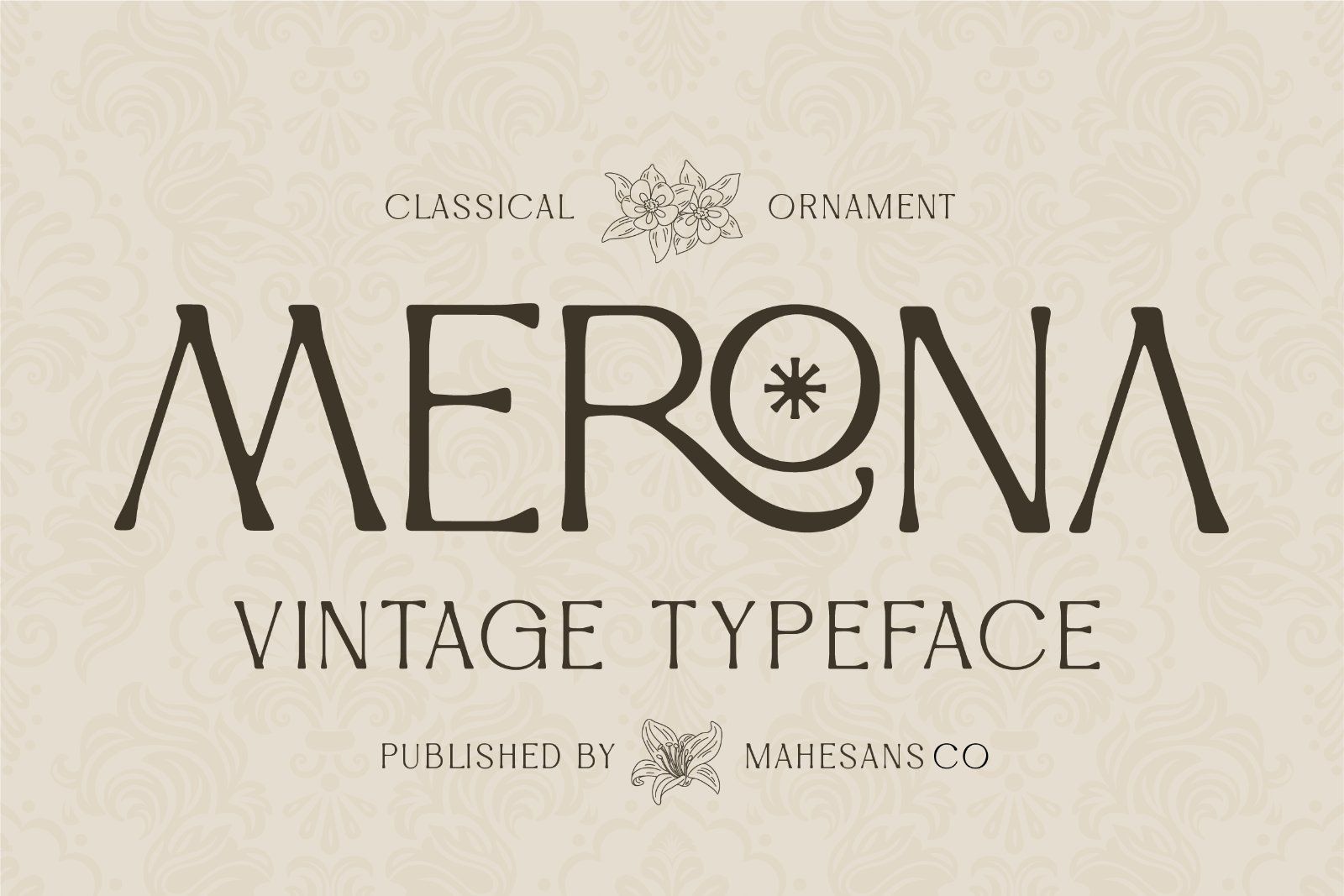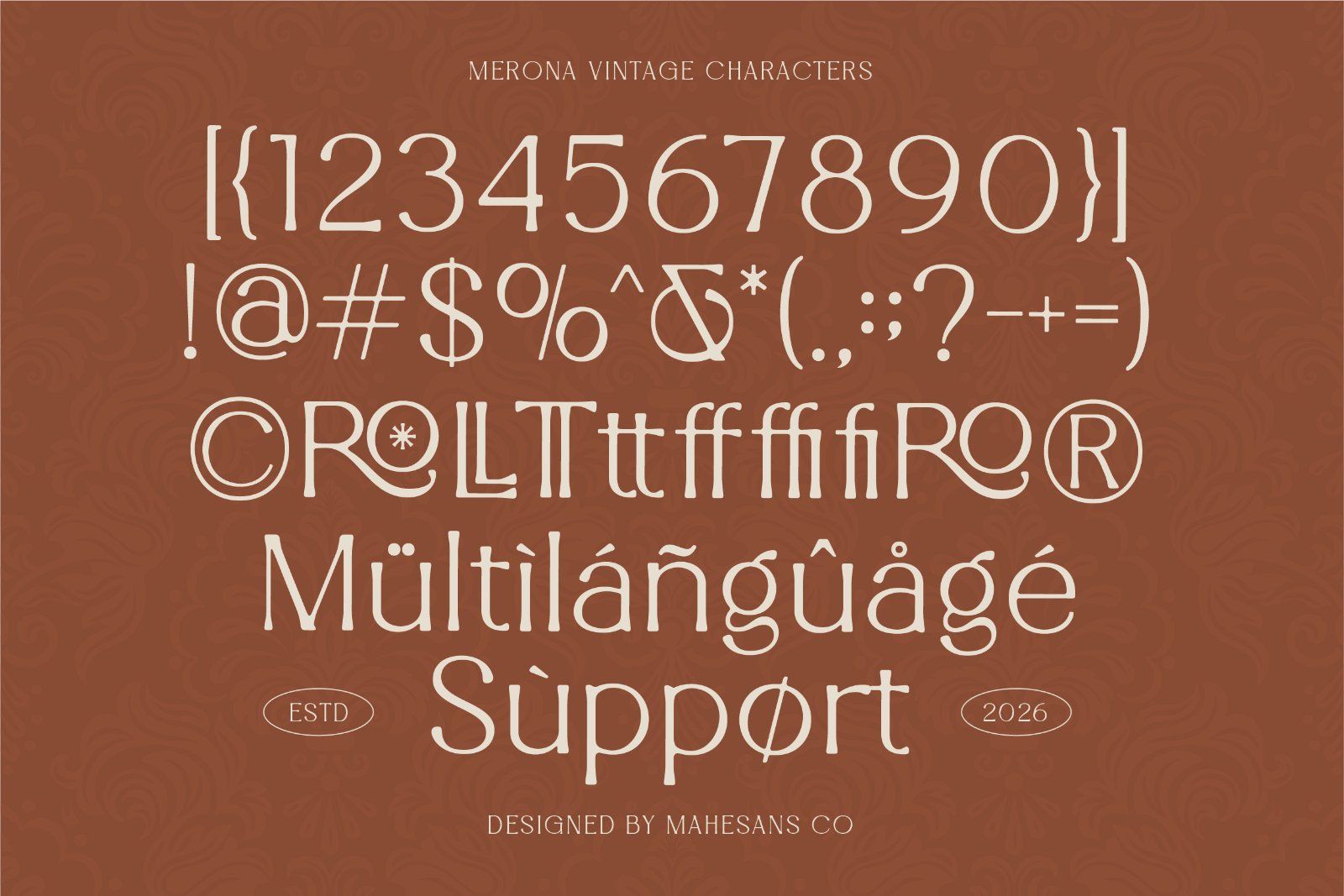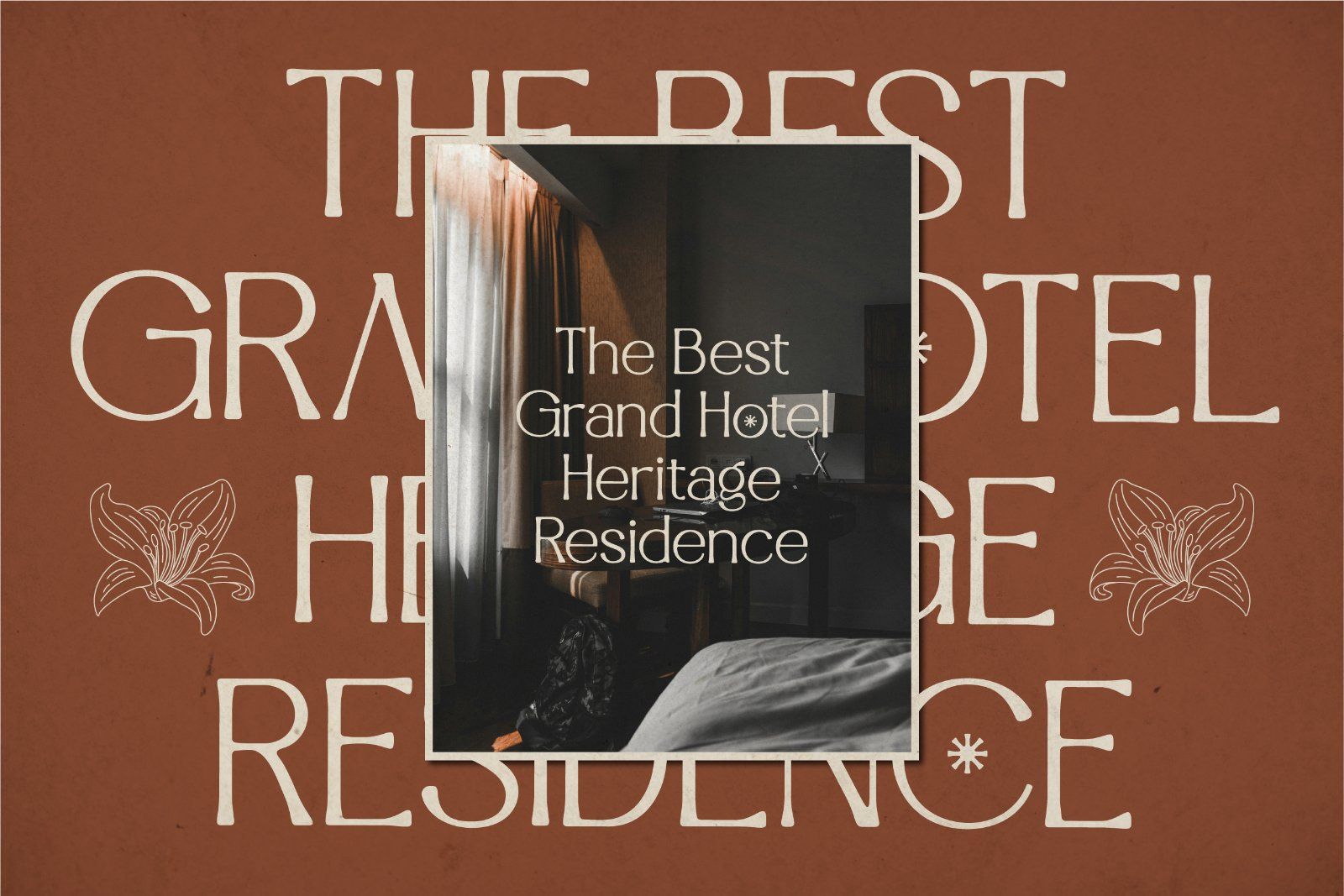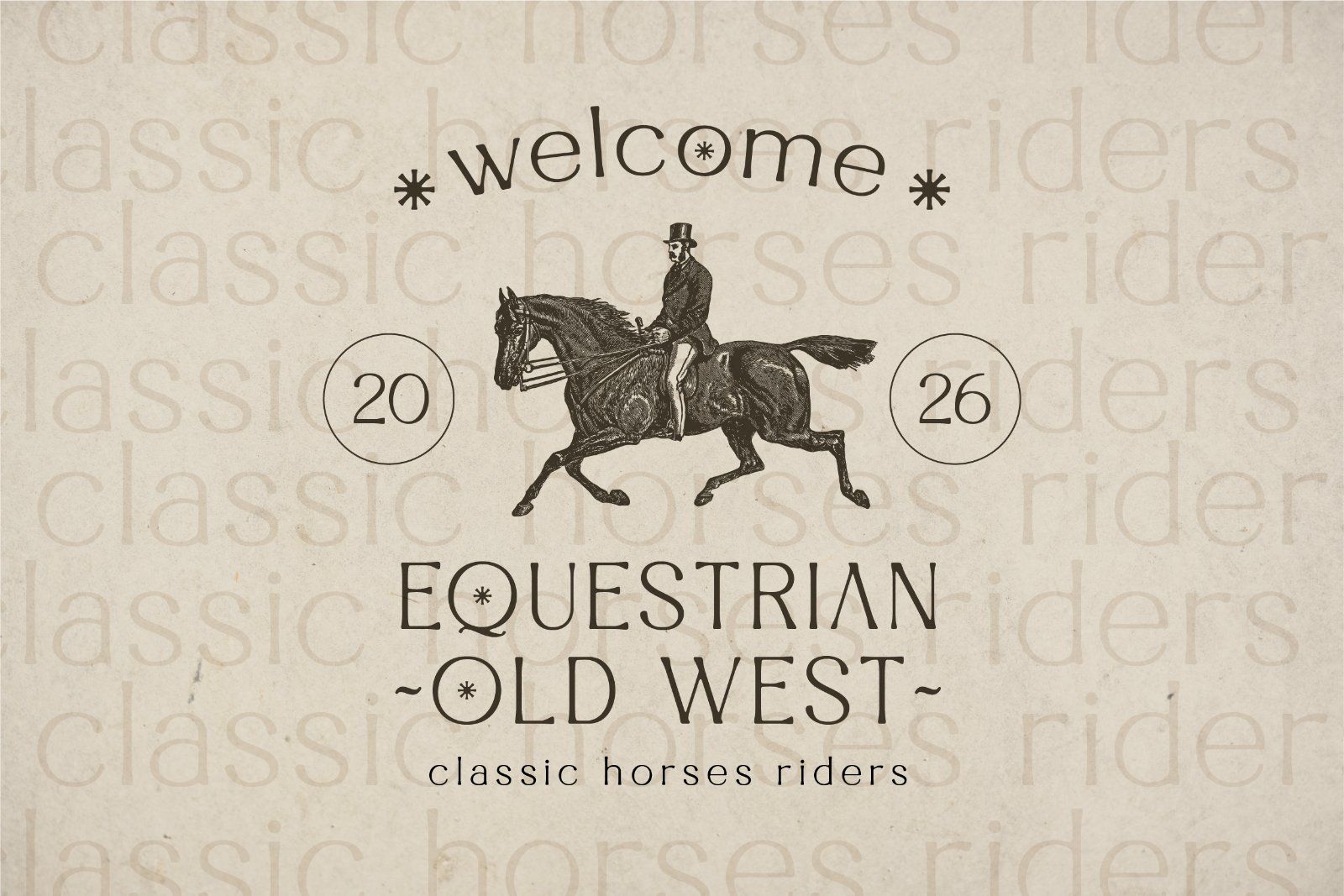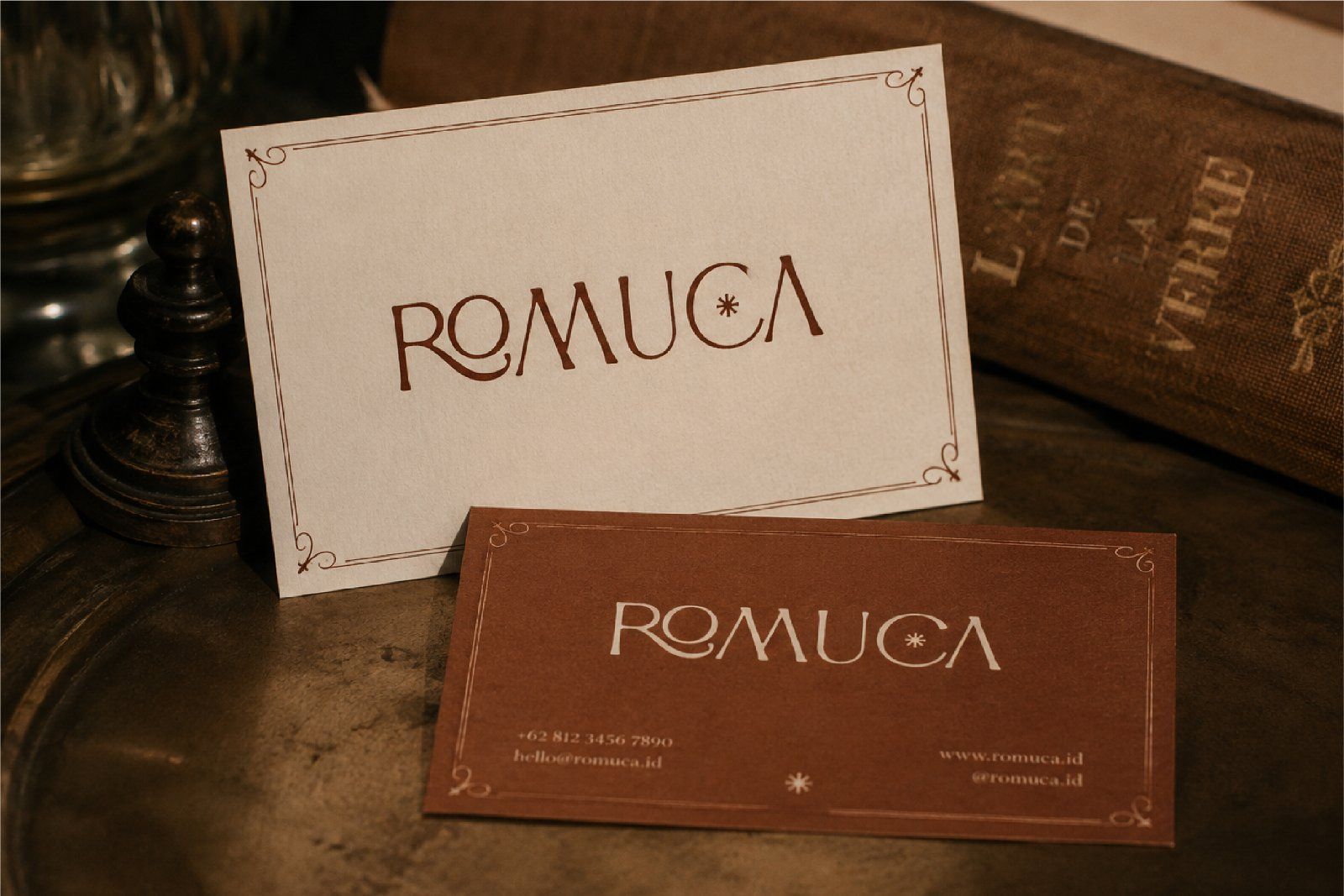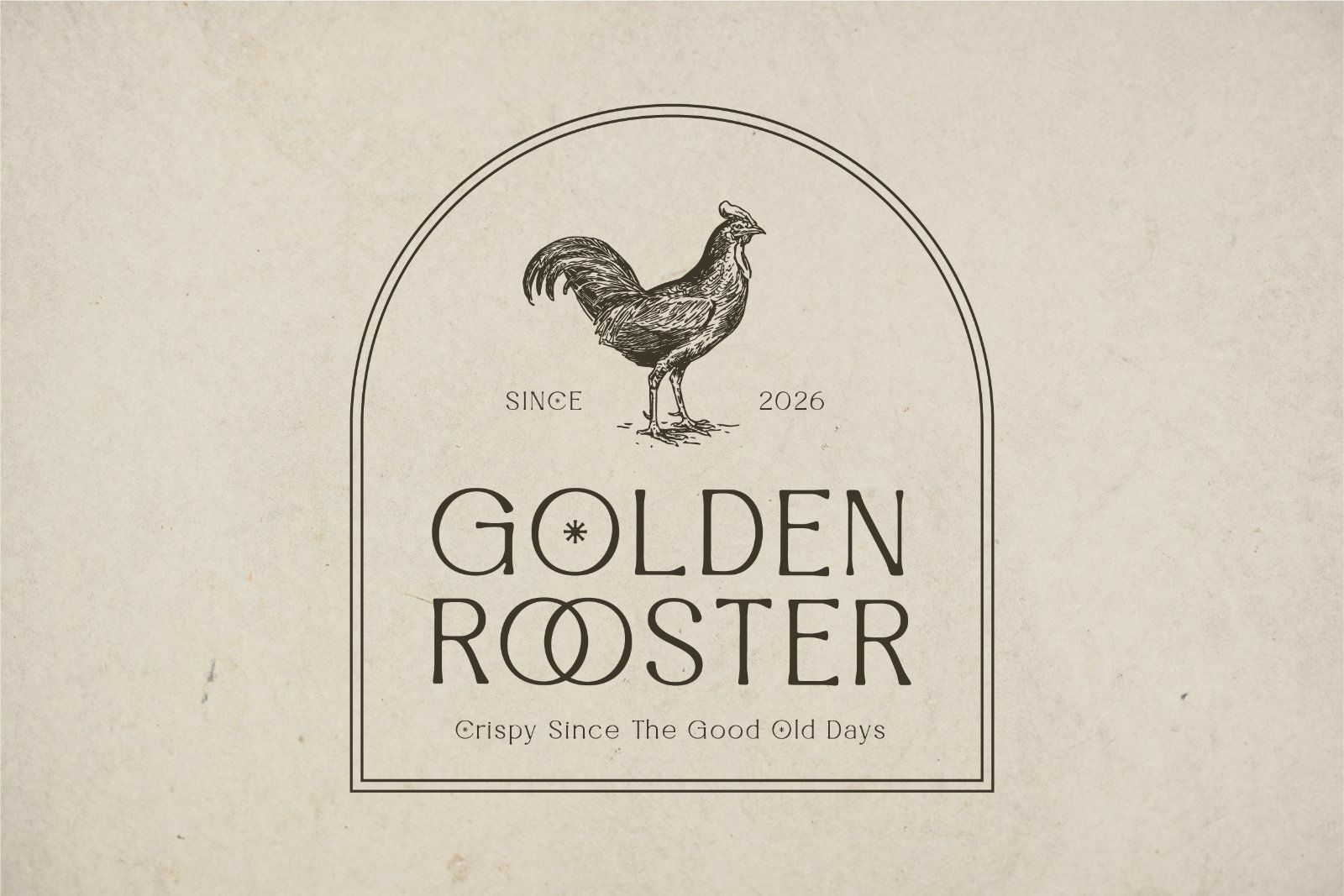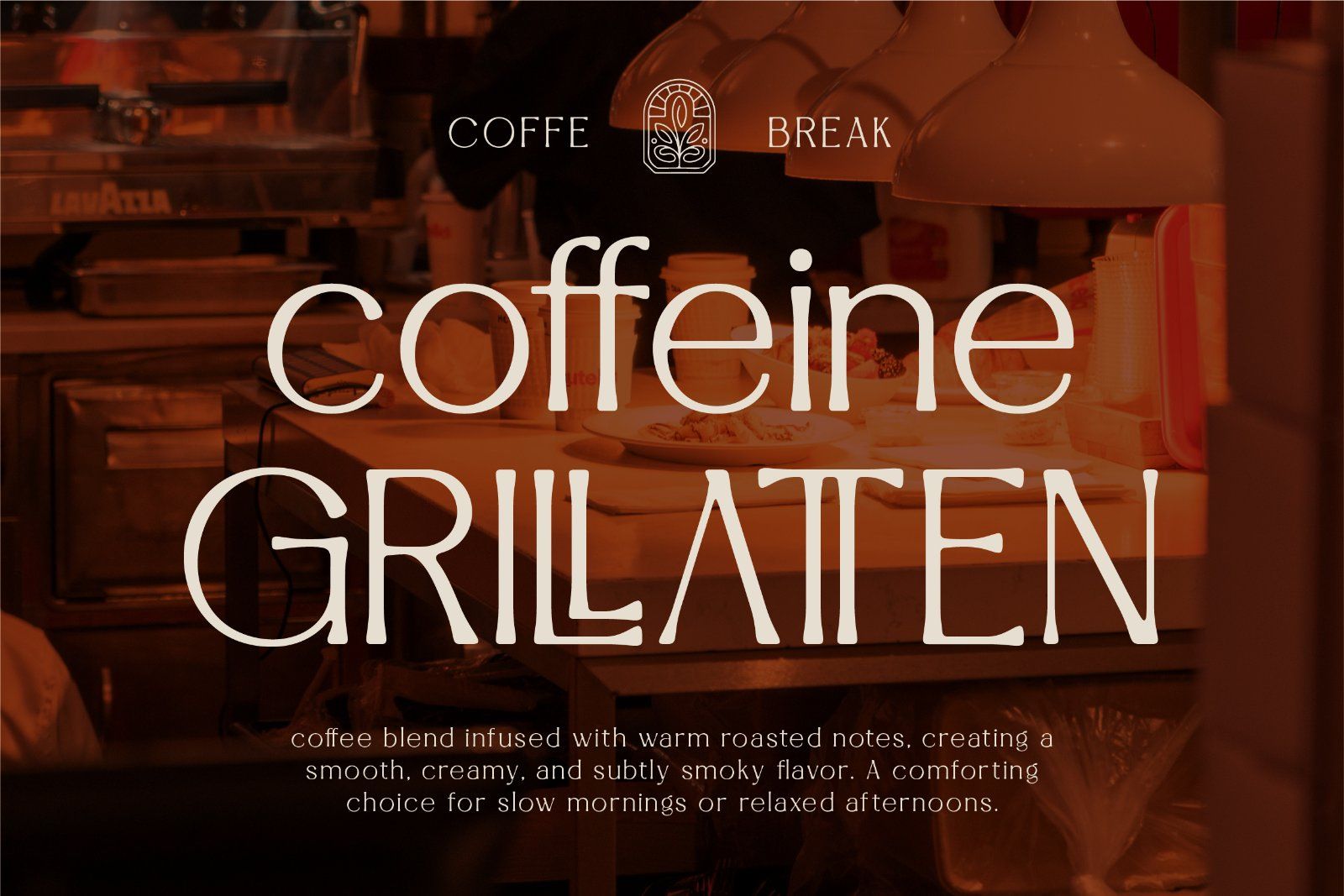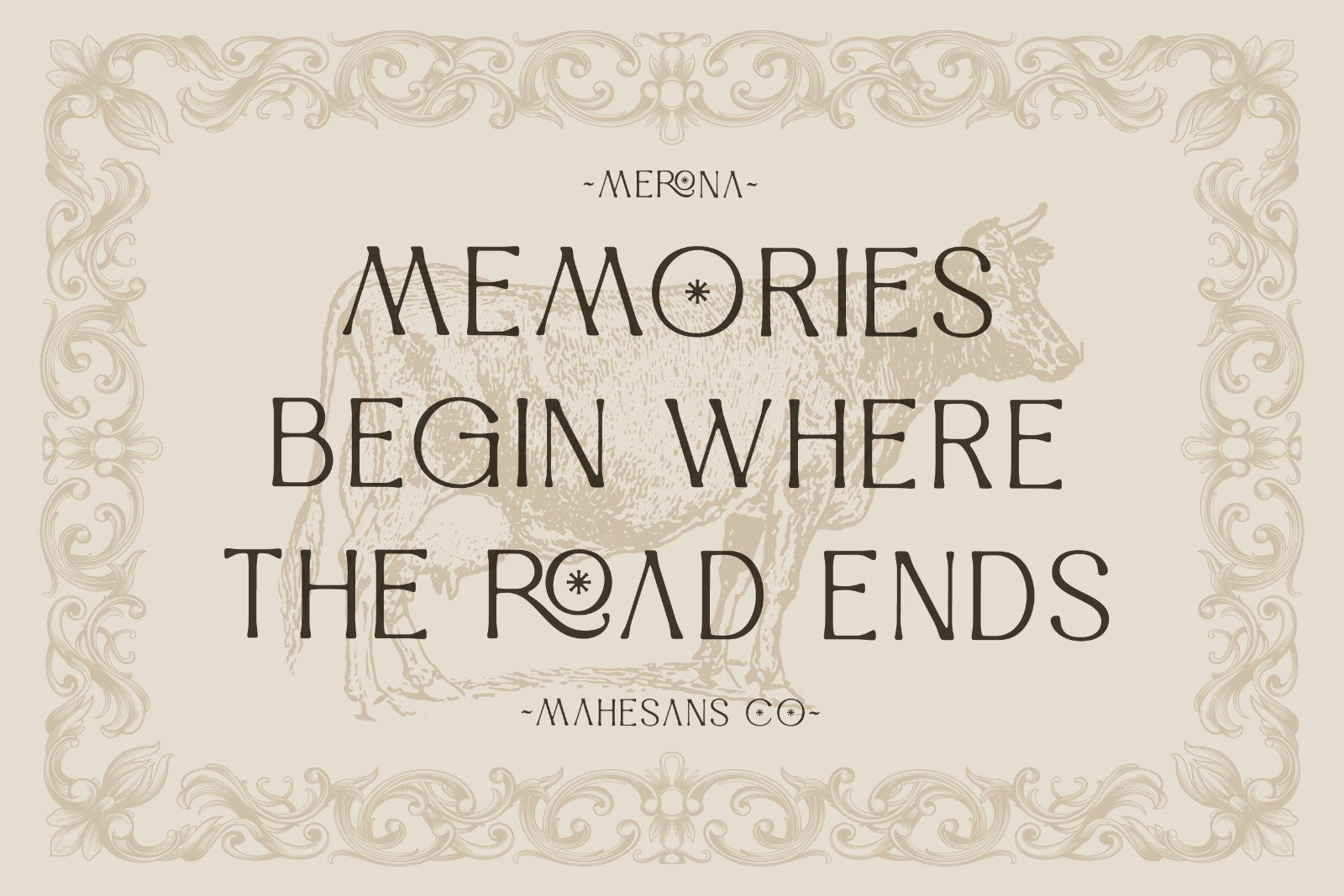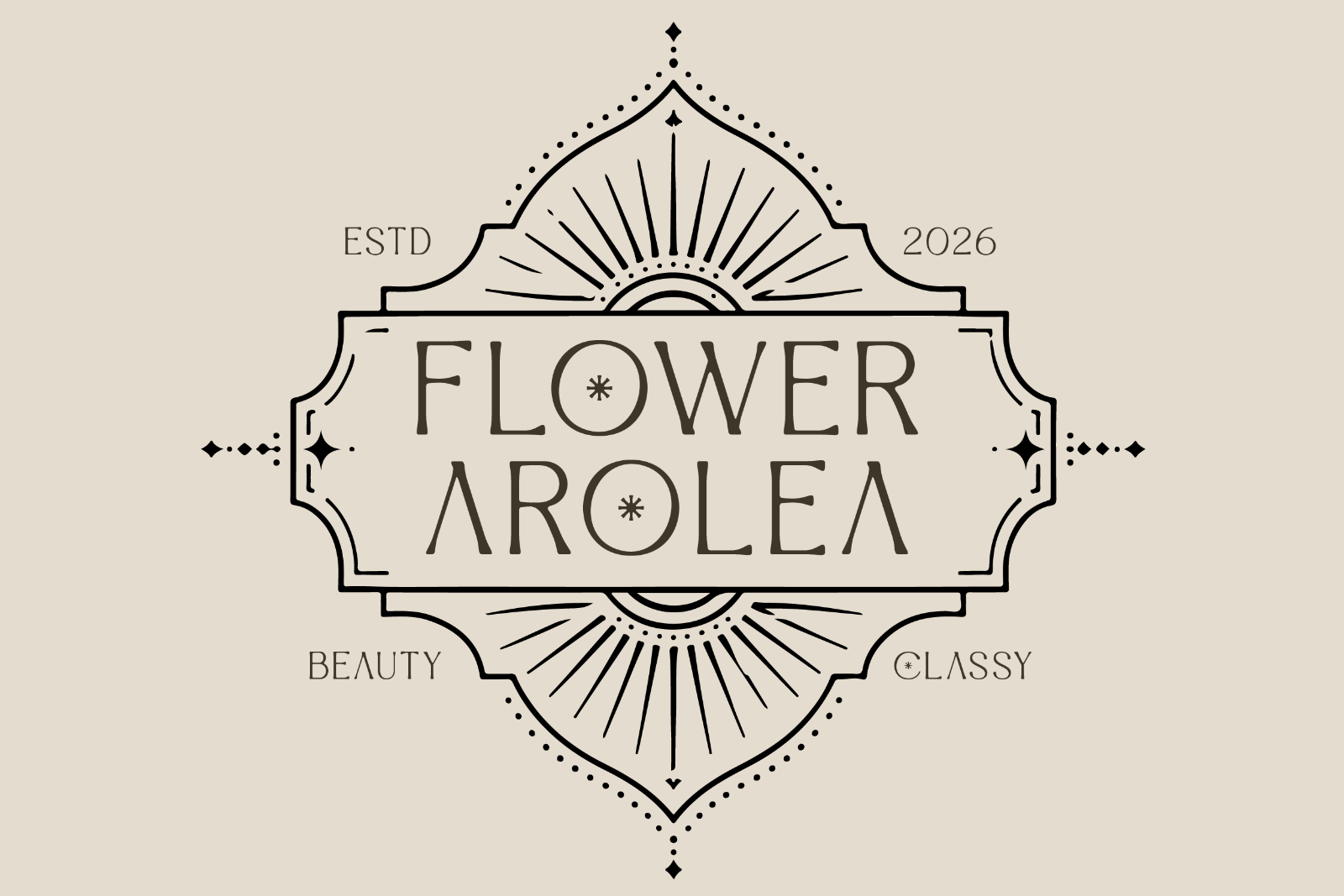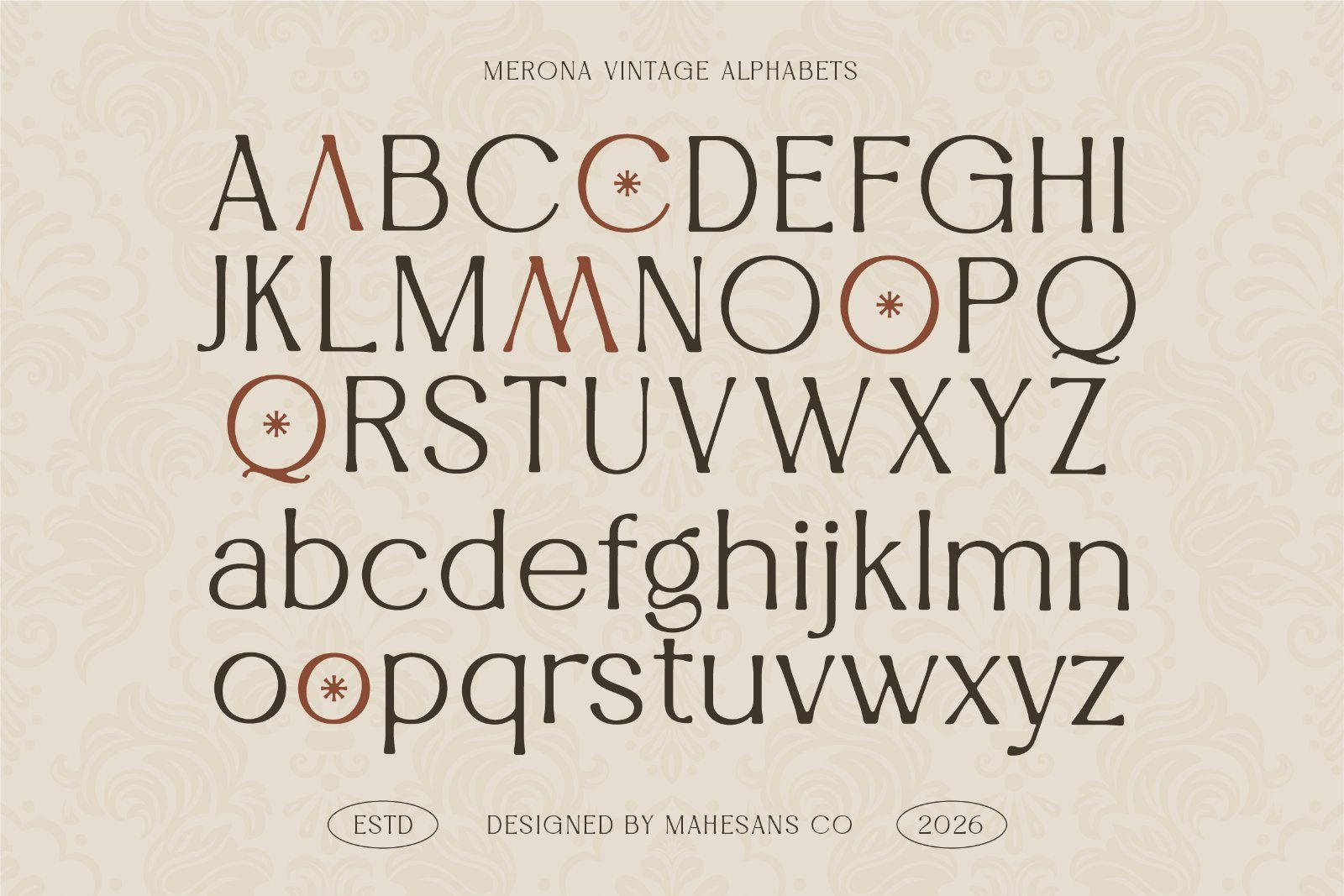
Merona is a vintage ornamental display typeface inspired by classical typography, old-world elegance, and Western heritage. Its distinctive serif shapes, refined proportions, and decorative details create a sophisticated yet nostalgic character that stands out in both modern and vintage-inspired designs.
Designed for bold headlines and statement typography, Merona works beautifully for branding, logos, packaging, editorial designs, posters, invitations, labels, signage, apparel, badges, and vintage-inspired merchandise.
Its elegant and slightly rustic personality makes it especially suitable for projects inspired by equestrian culture, old western aesthetics, heritage brands, boutique fashion, floral identities, classic labels, and timeless editorial design.
Whether you're creating a sophisticated brand identity or an authentic vintage composition, Merona brings a distinctive classical atmosphere to your typography.
• Logo & Branding
• Vintage Labels
• Equestrian Branding
• Western Designs
• Editorial & Magazine Design
• Packaging
• Posters & Signage
• Invitations & Stationery
• Apparel & Merchandise
• Boutique & Heritage Brands
• Badges & Emblems
• Floral & Ornamental Designs
• Alternates & Ligatures